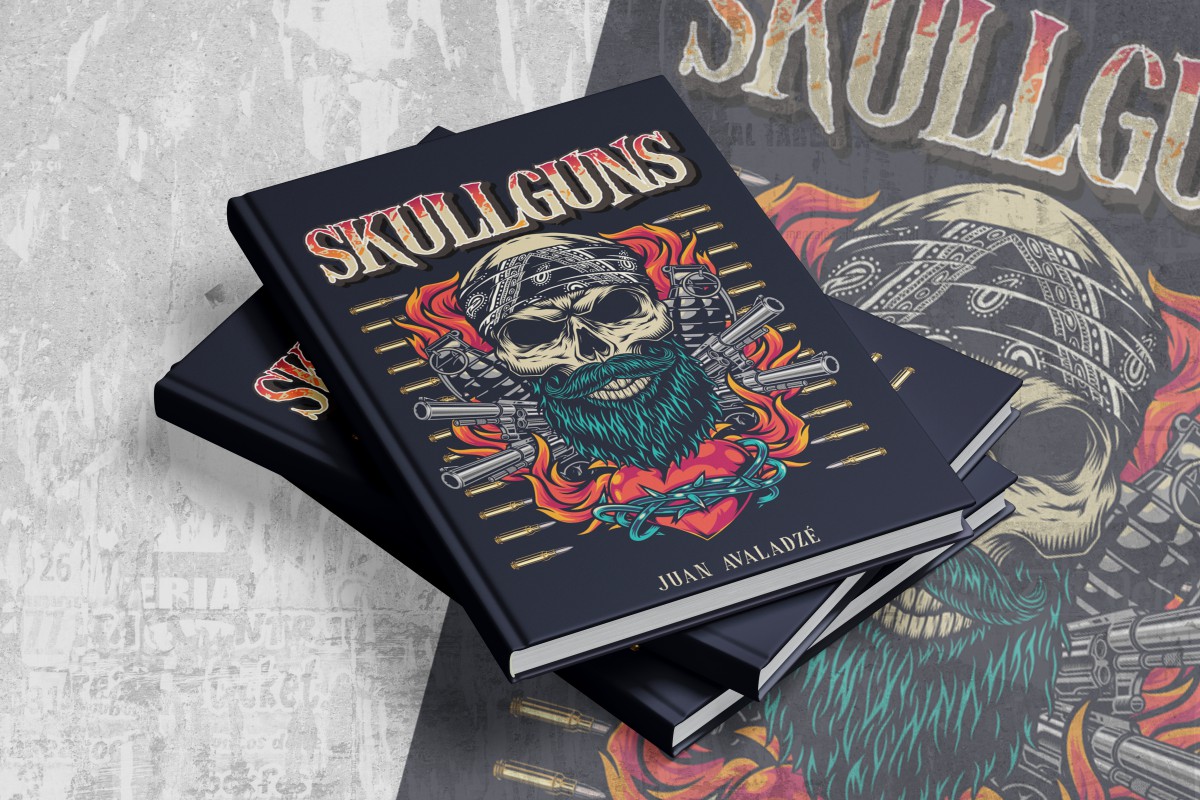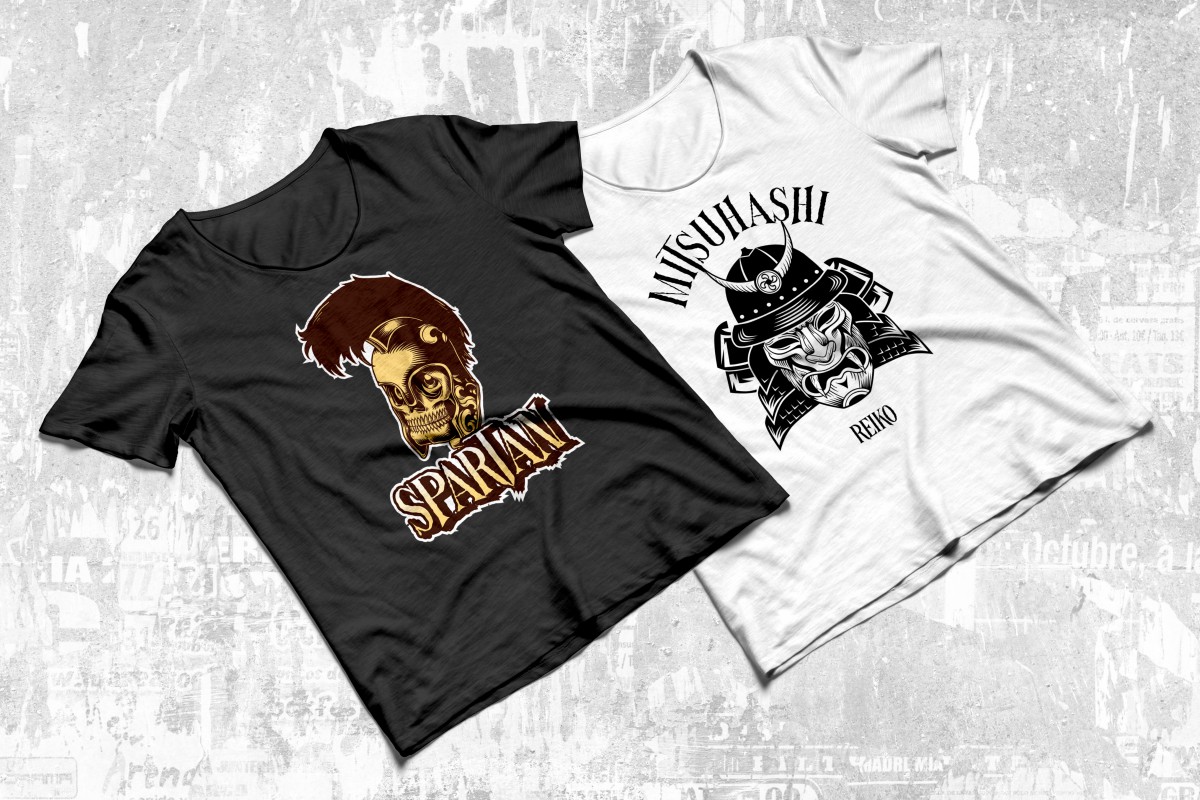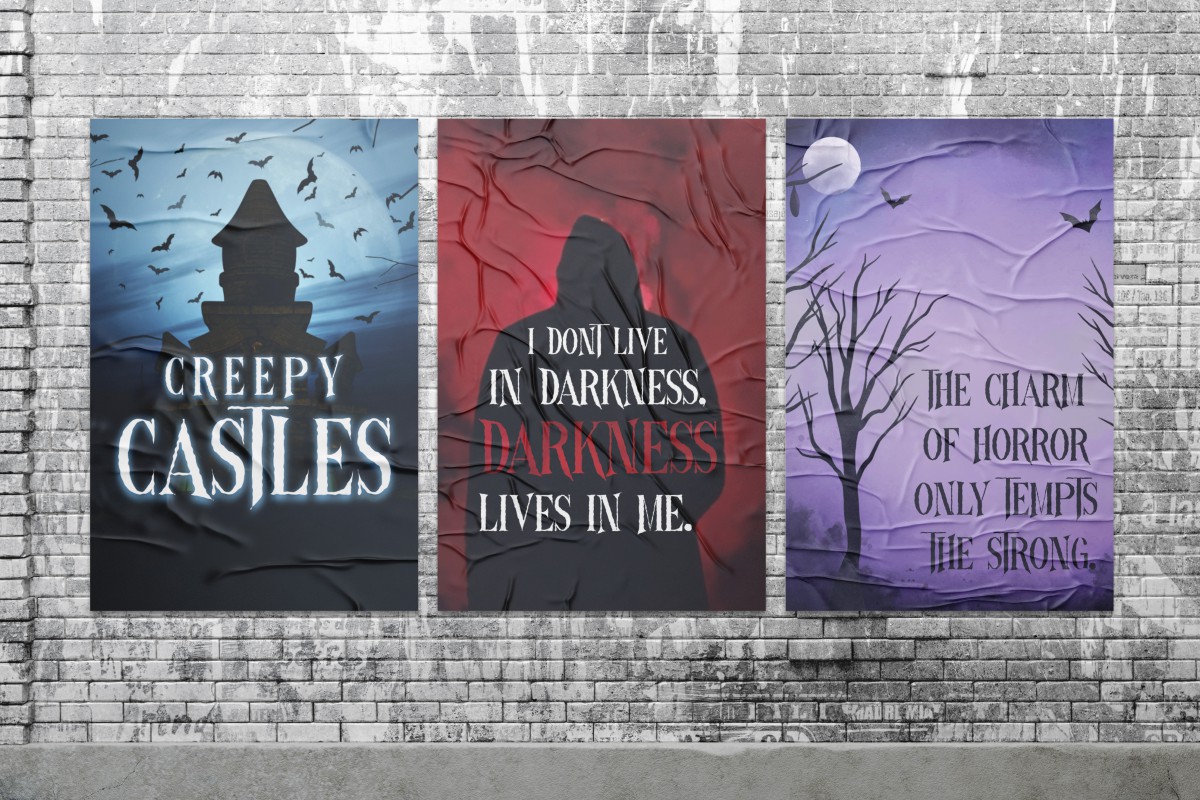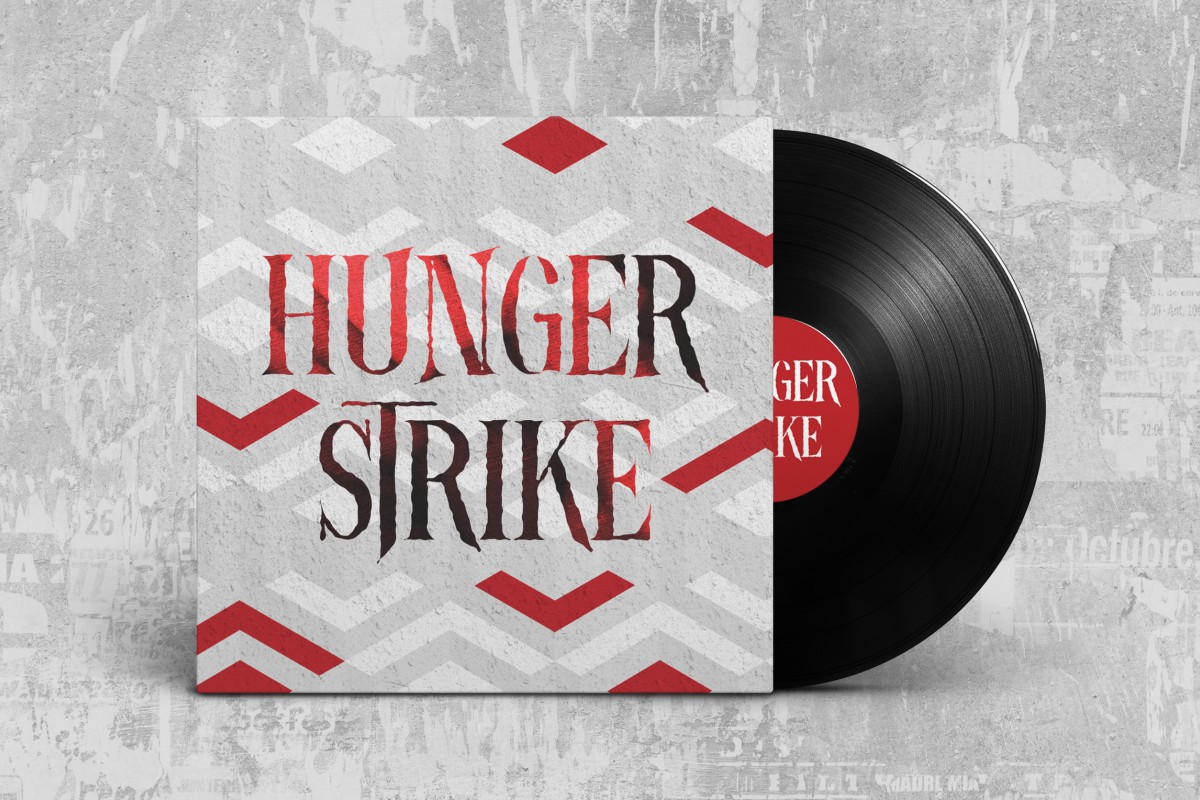
Nightside Font
Nightside Font is a horror display font with special effect spooky nightmare theme. Is a thick lettered and authentic serif font, this font trendy and stylish Add this font to your favorite creative ideas and notice how it makes them come alive! will be an incredible asset to your fonts, as it has the potential to elevate any creation.
This font will be best used as a display for headings, clean lines and smooth curves give any project an extra touch of hunger strike. We make mornings better we make the nights longer.